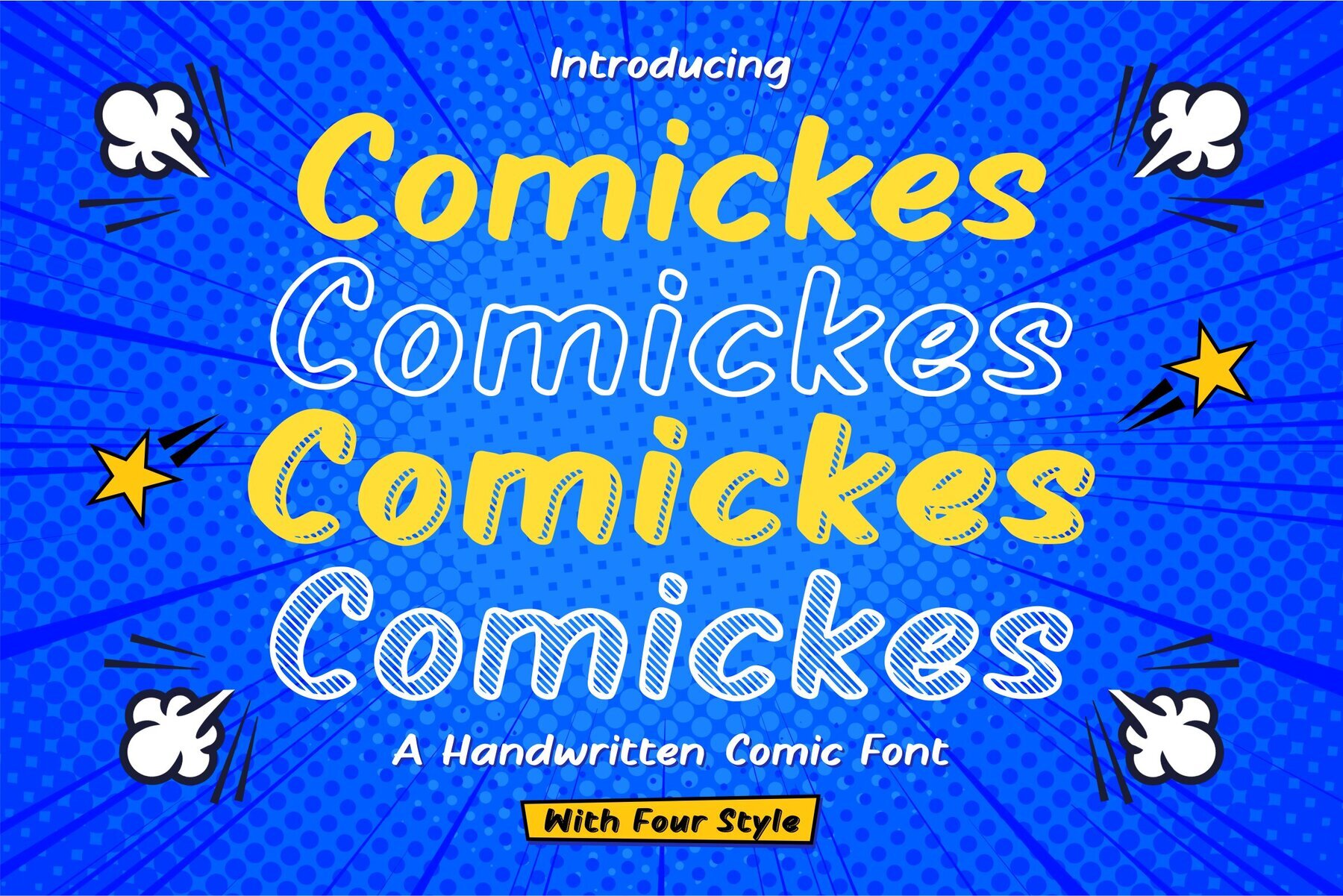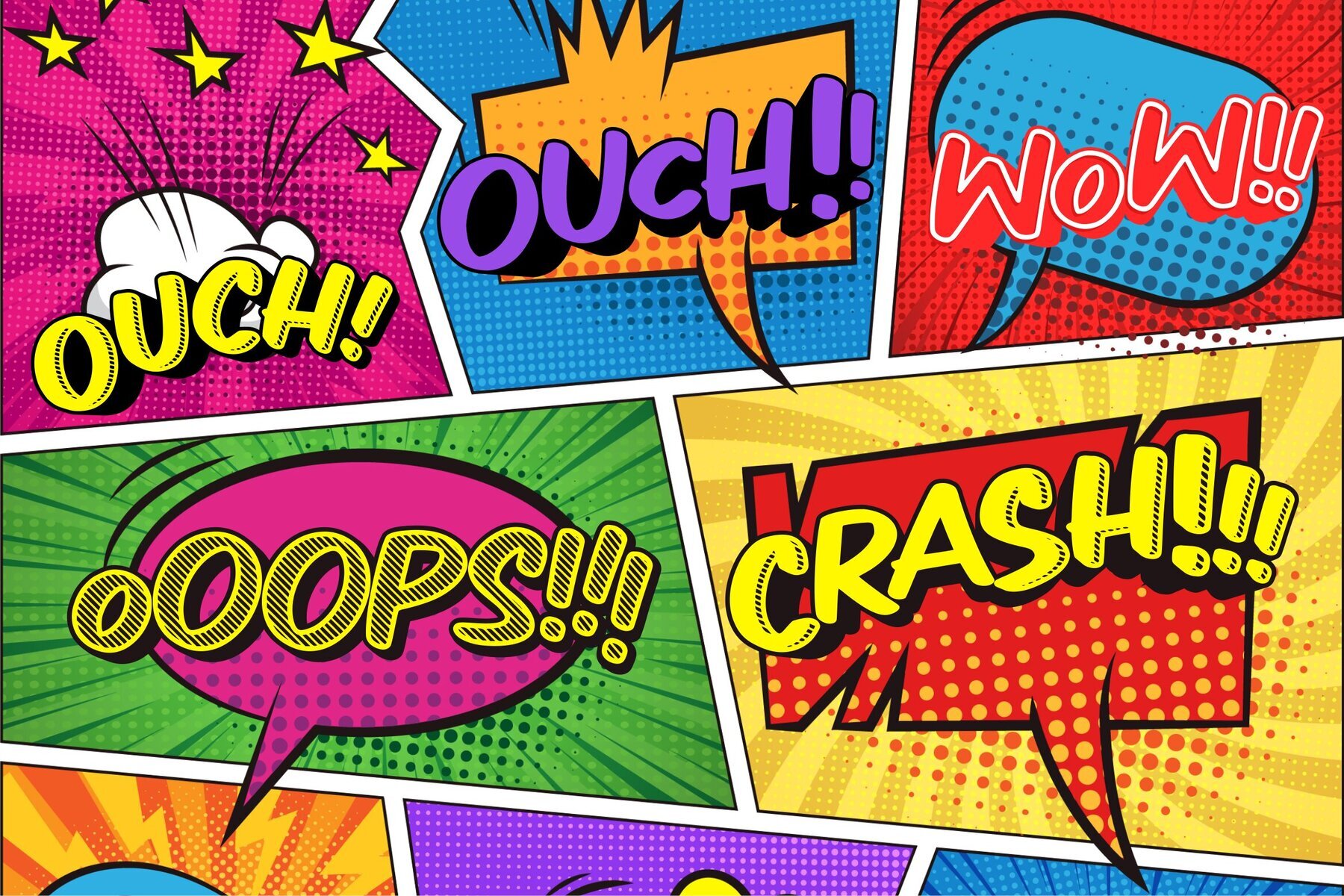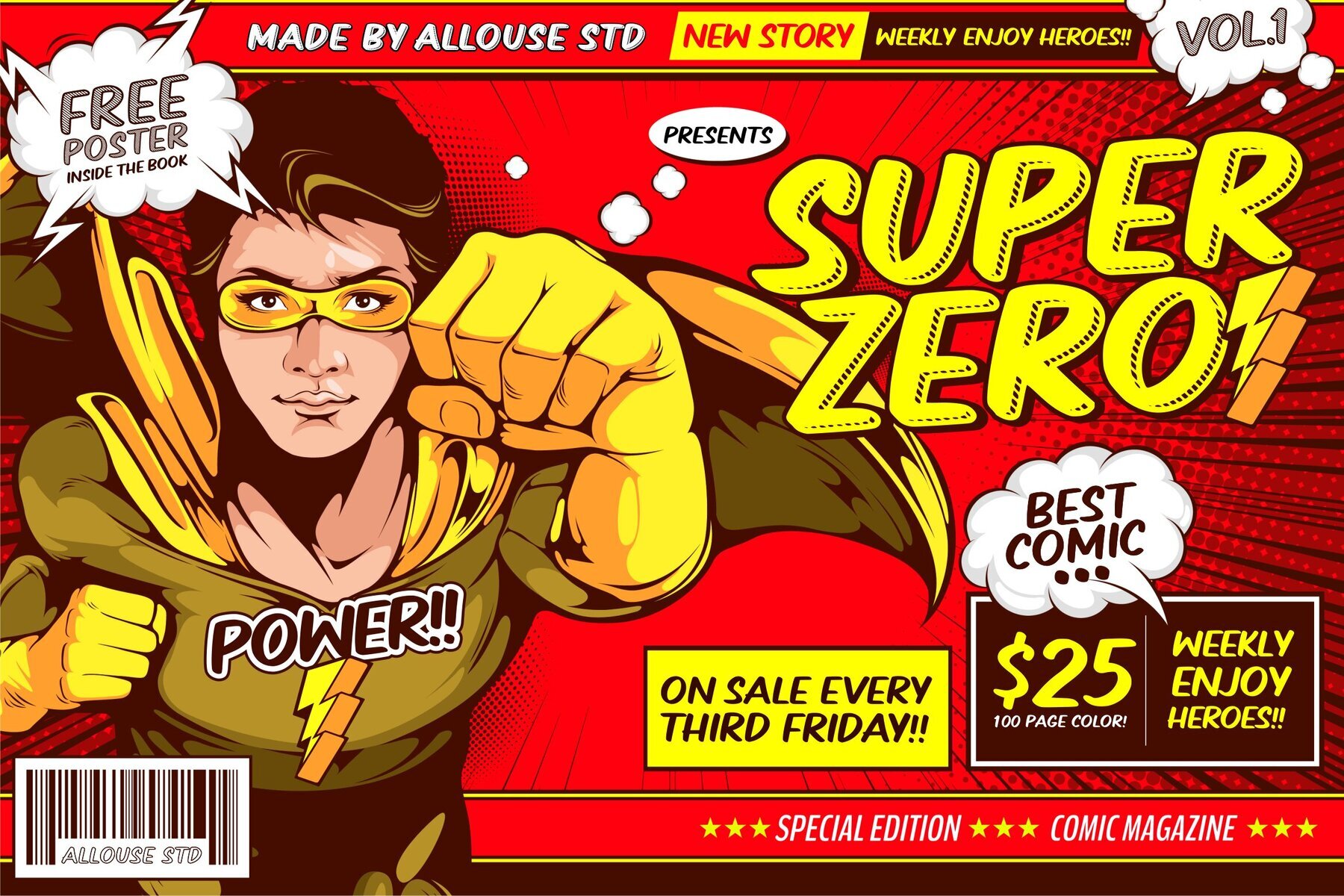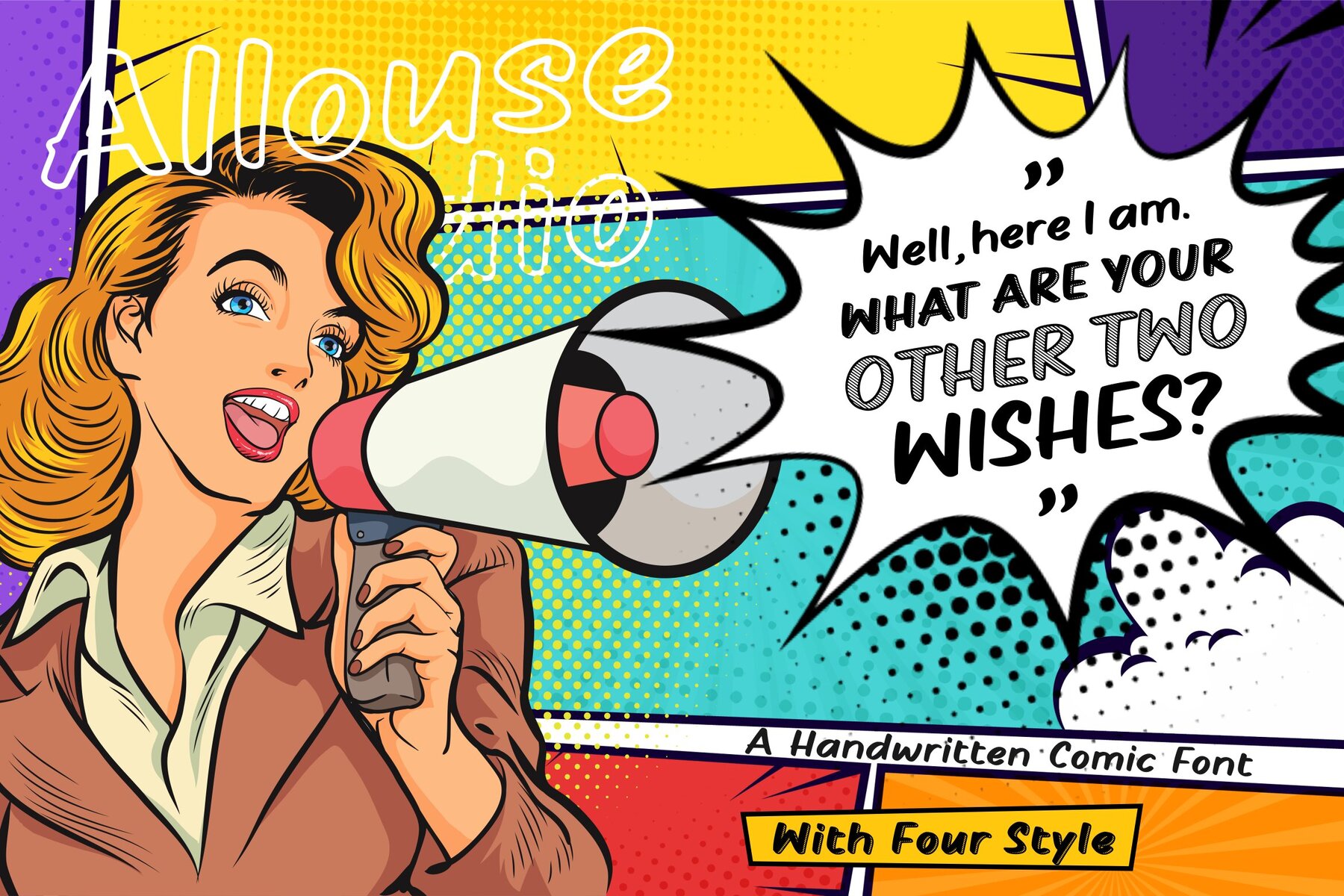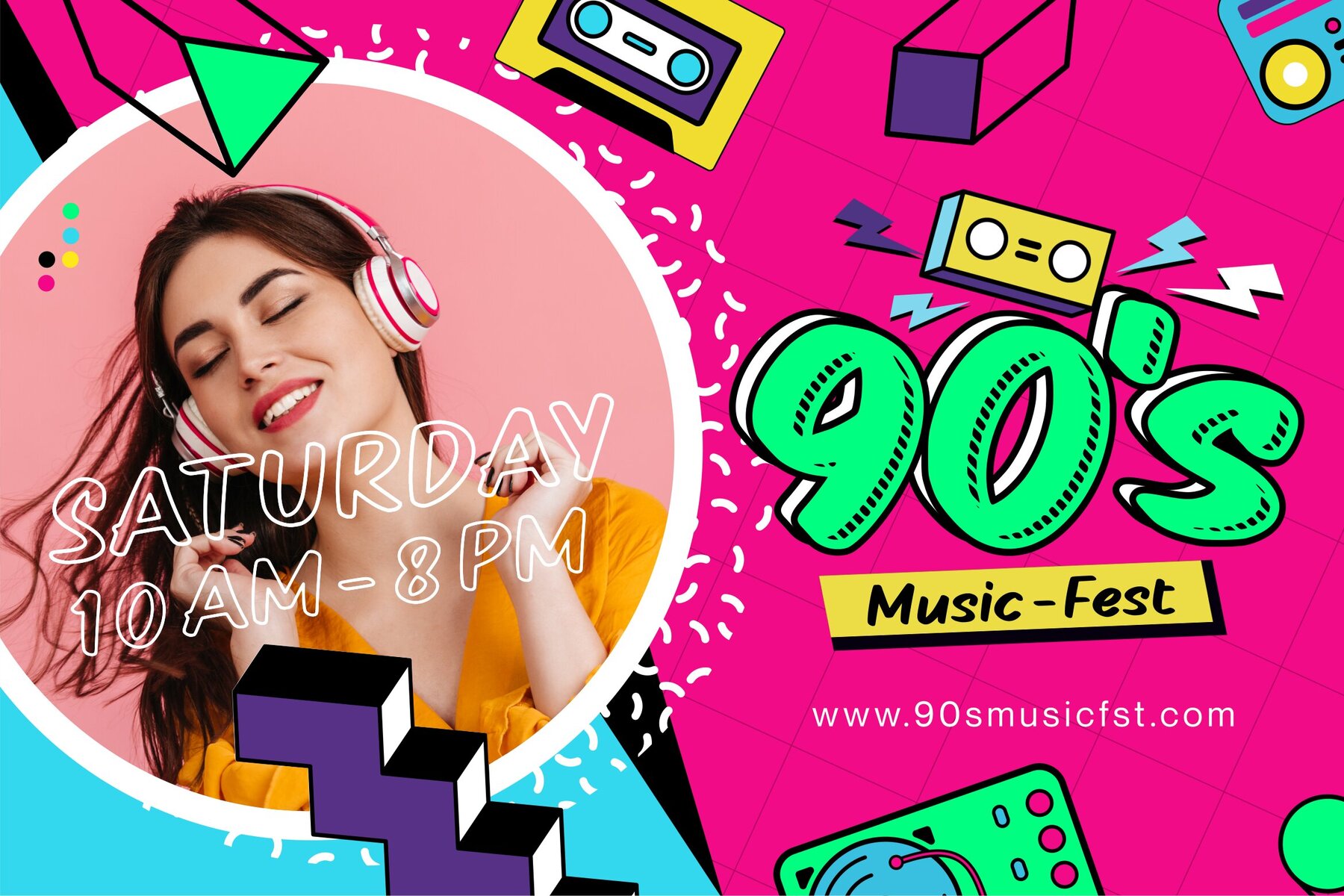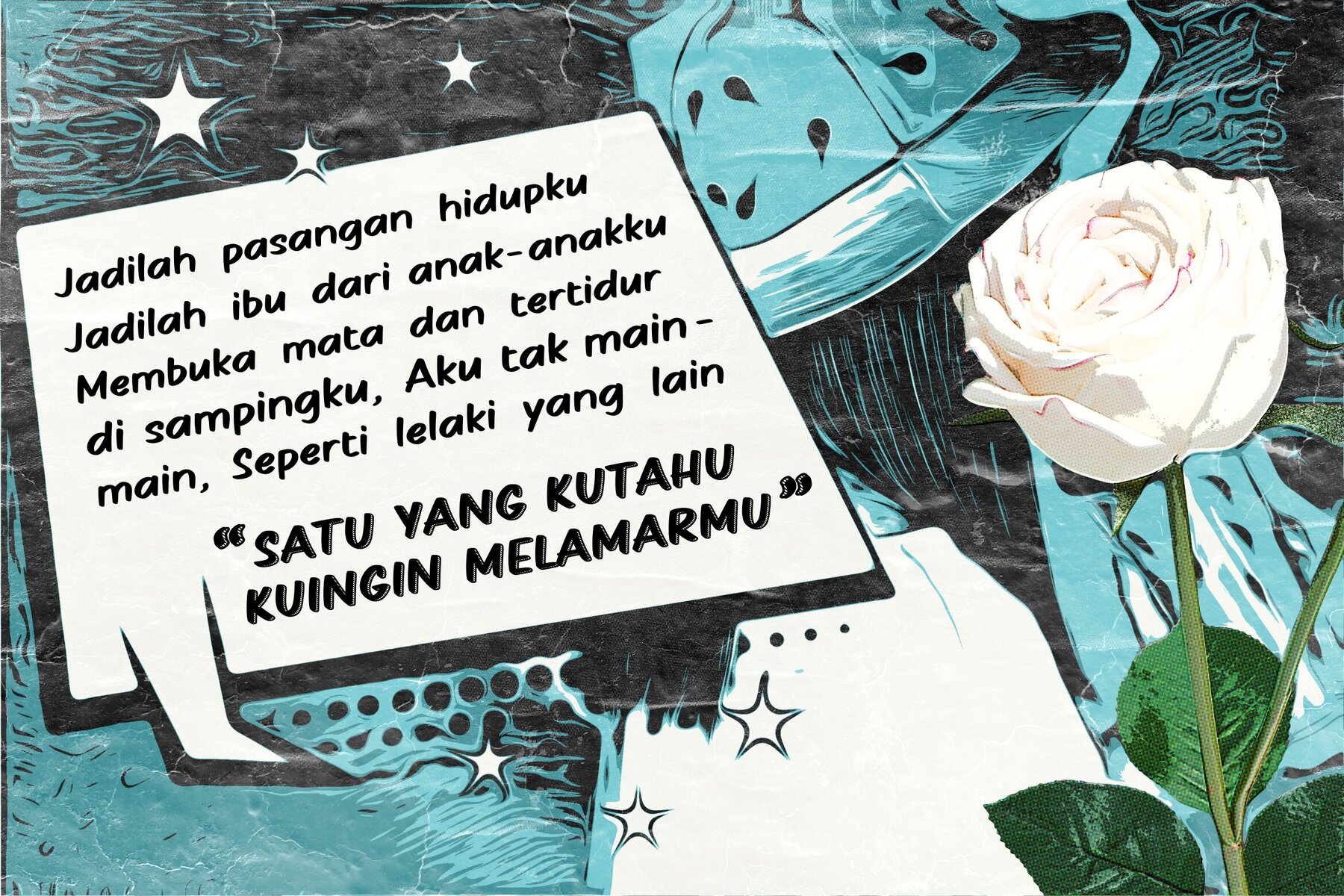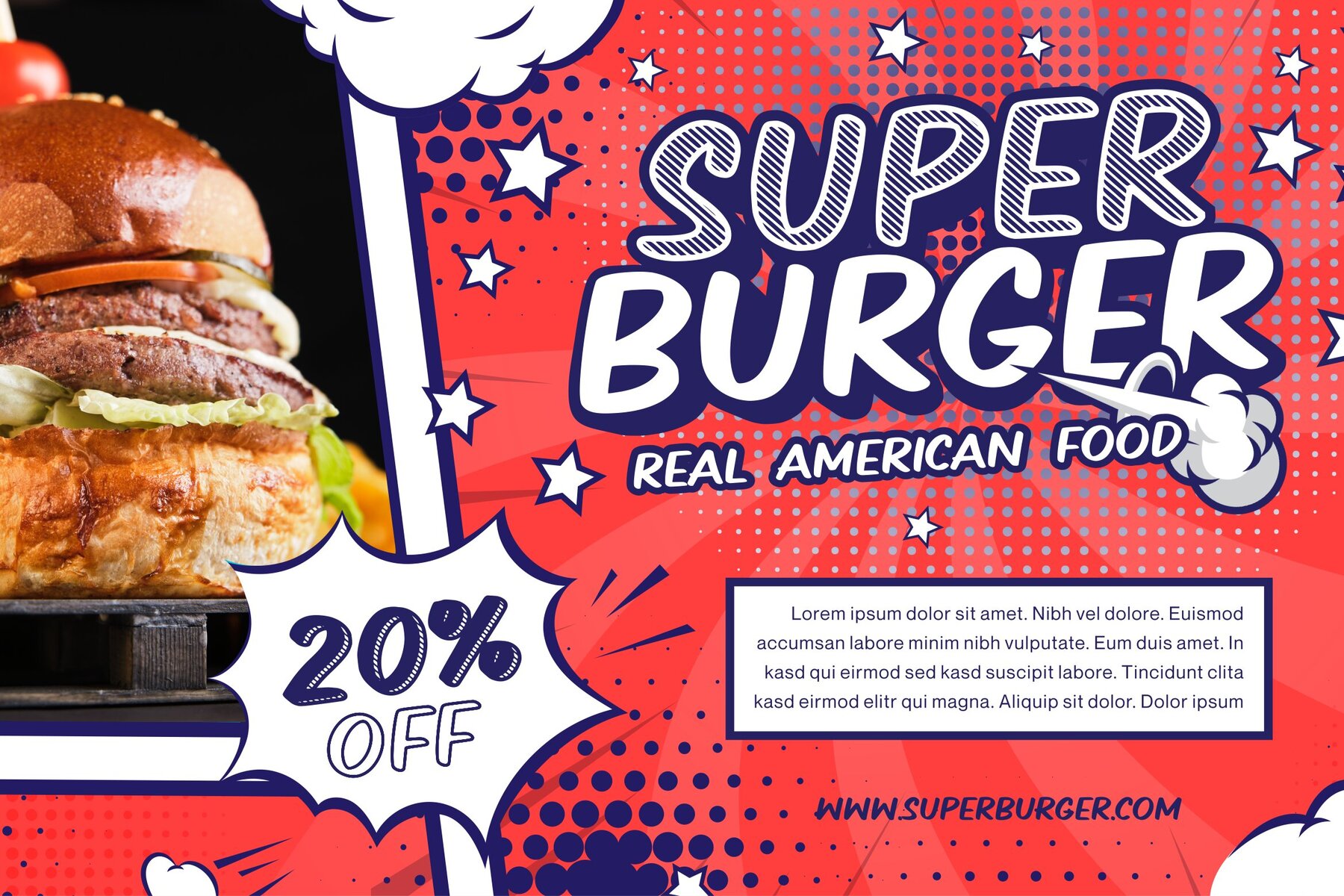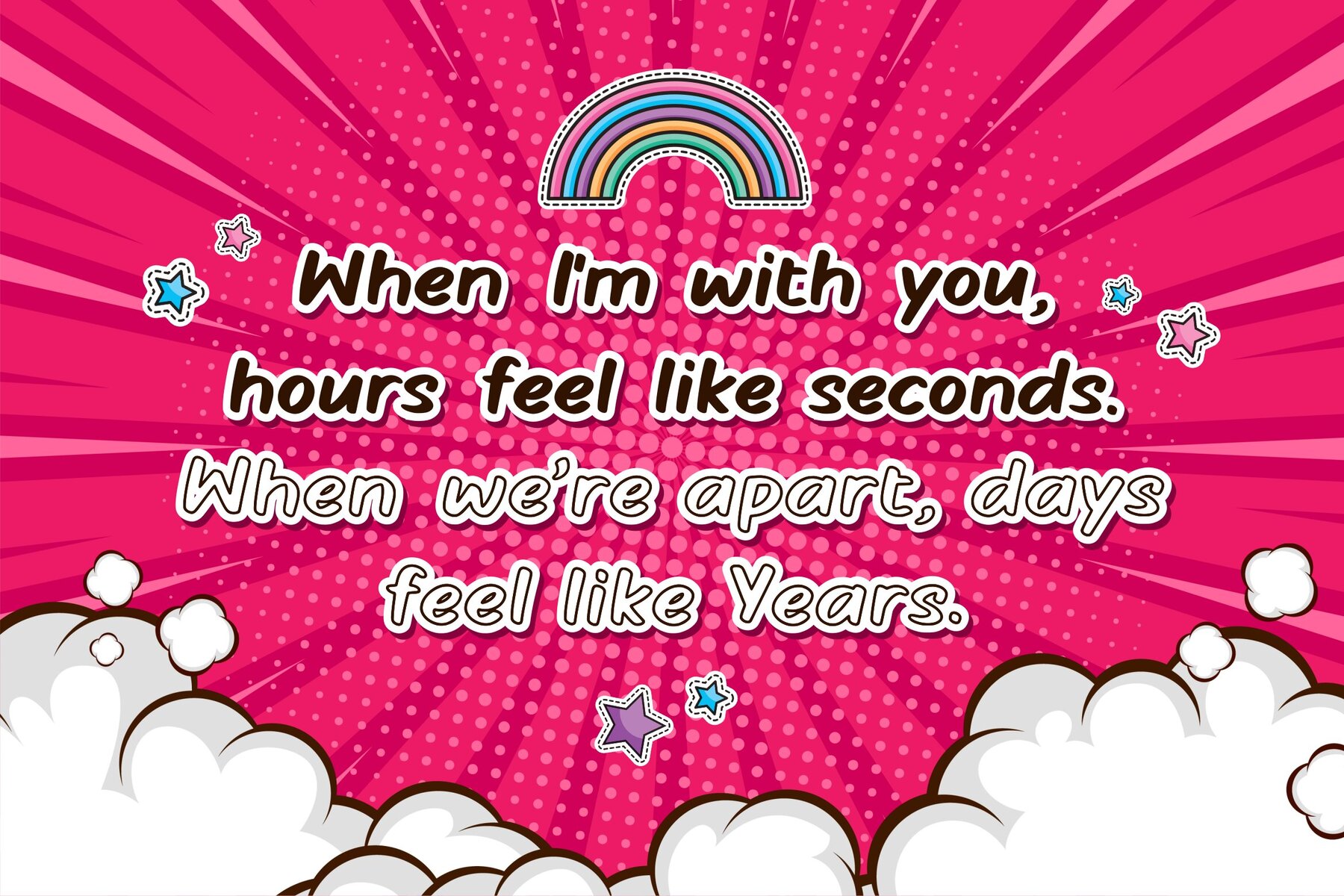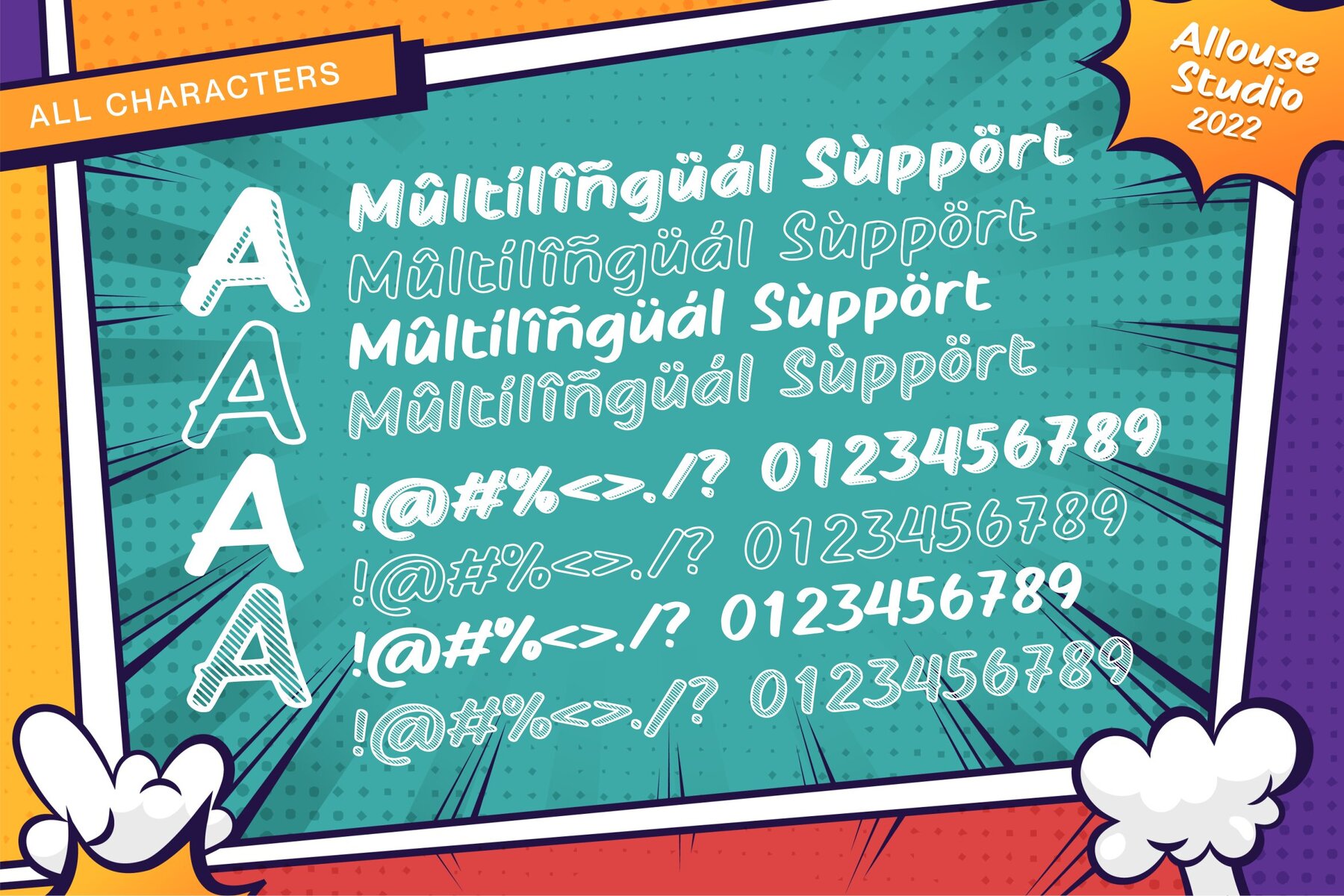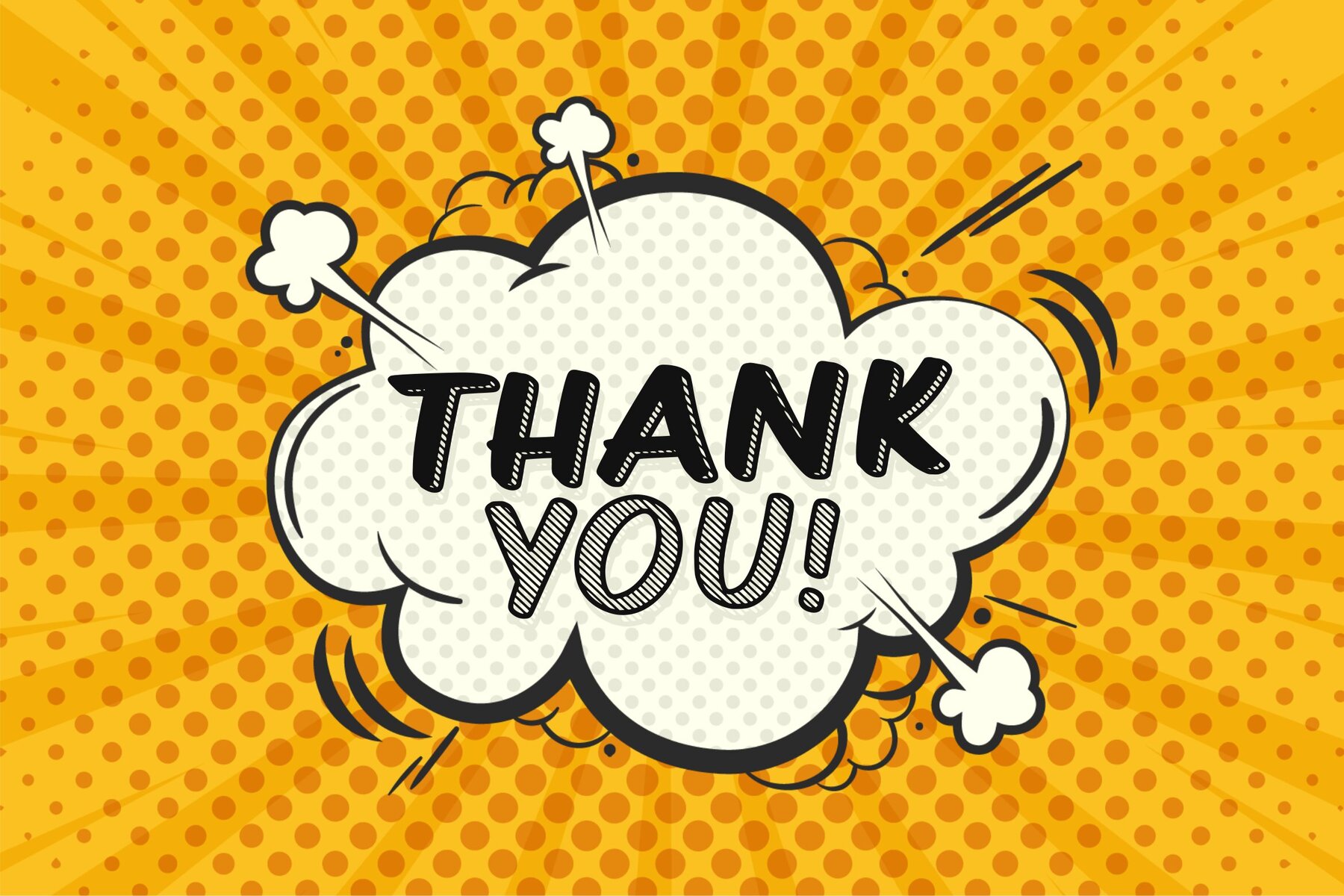
Comickes Font
Comickes Regular
Comickes Combo
Comickes Outline
Comickes Stripe
Comickes by Allouse.Studio brings a burst of creativity to your graphic endeavors. Ideal for a range of applications, this typeface adds character and flair whether you are working on product packaging, branding, or editorial designs. Let Comickes transform your wedding stationery or social media graphics with its engaging style.Comickes: A Playful Typeface for Versatile Design